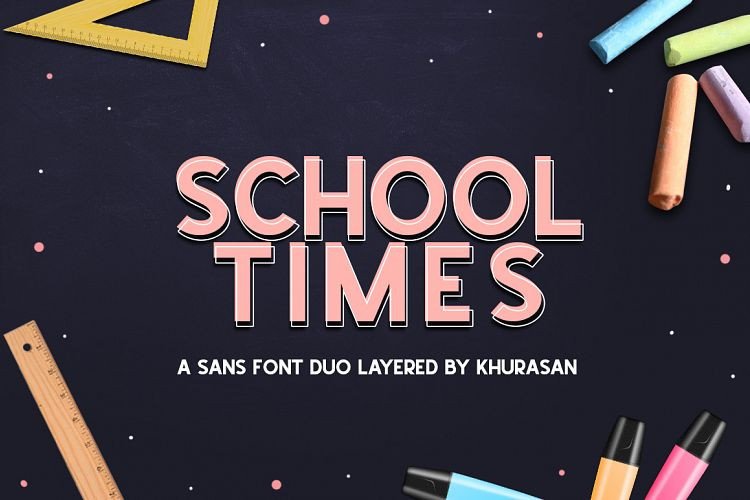
School Times Sans Font
This is geometric sans serif family of 2 fonts. Imparts both elegance and urgency to any text. Introducing School Times Font. It is designed and shared by khurasan. It’s a sans serif type of bold and outline type. School Times has two different styles, regular & outline. SchoolTimes it’s perfect for , poster, logo, magazine, cover, banner, tshirt and headers, or even large-scale artwork.